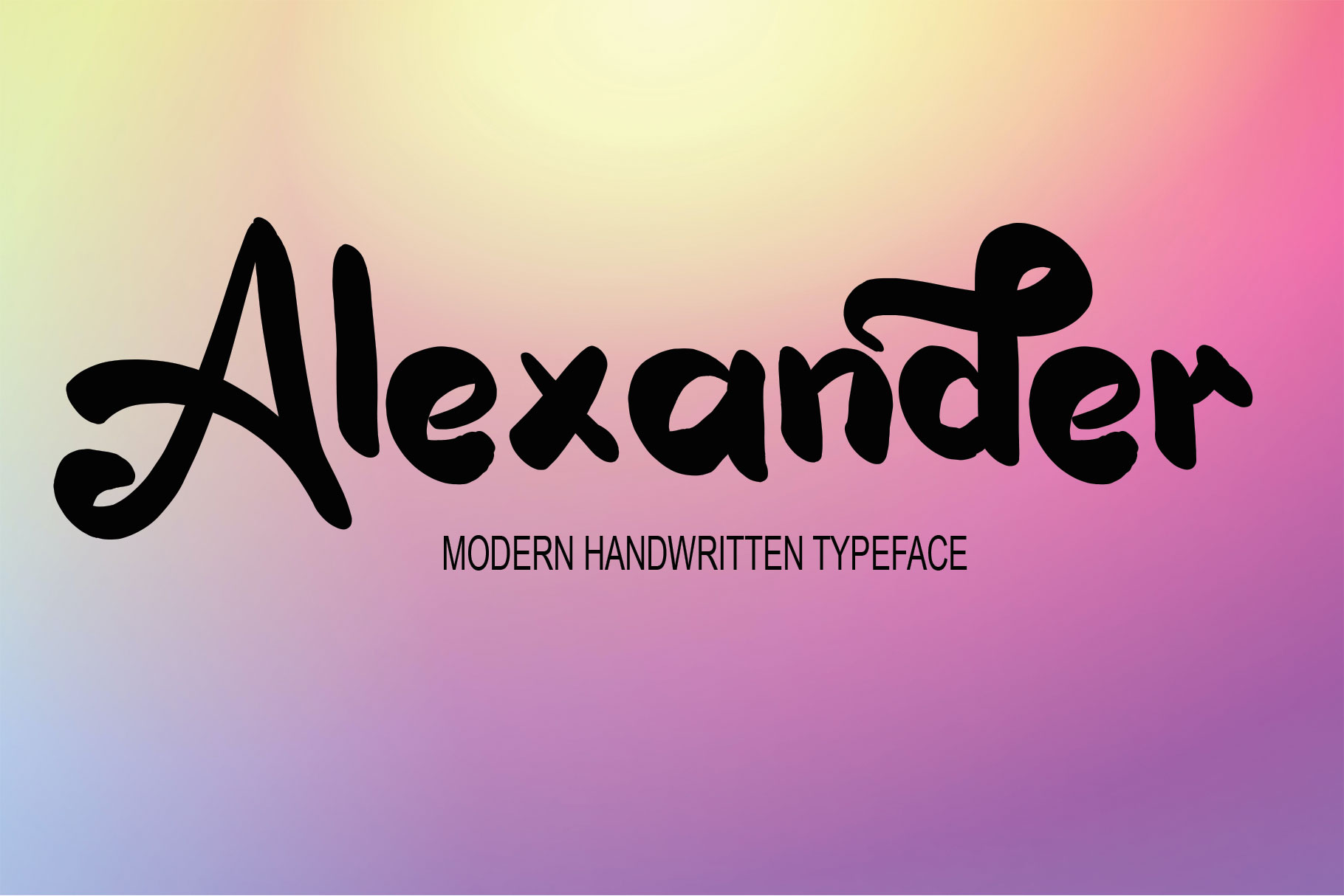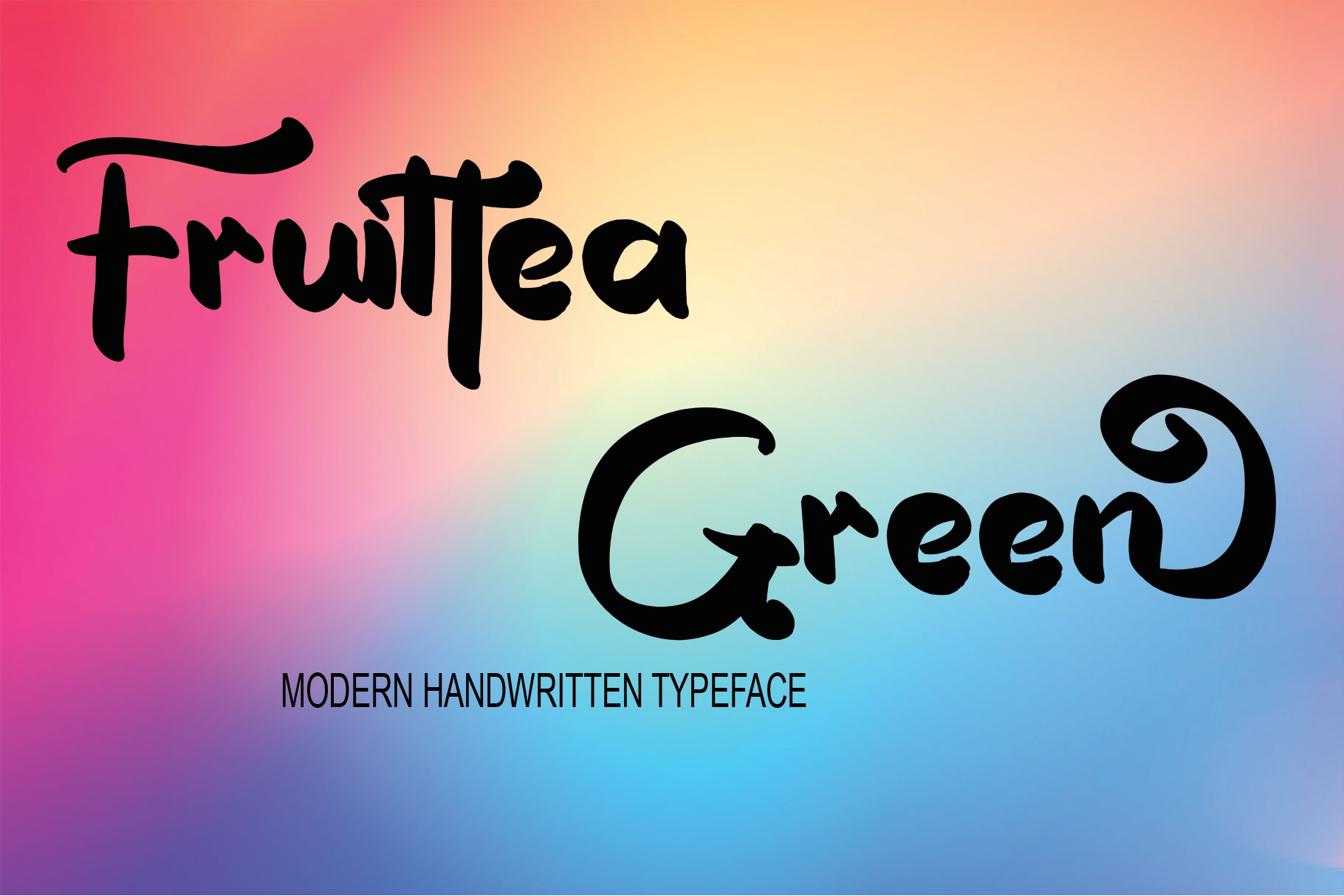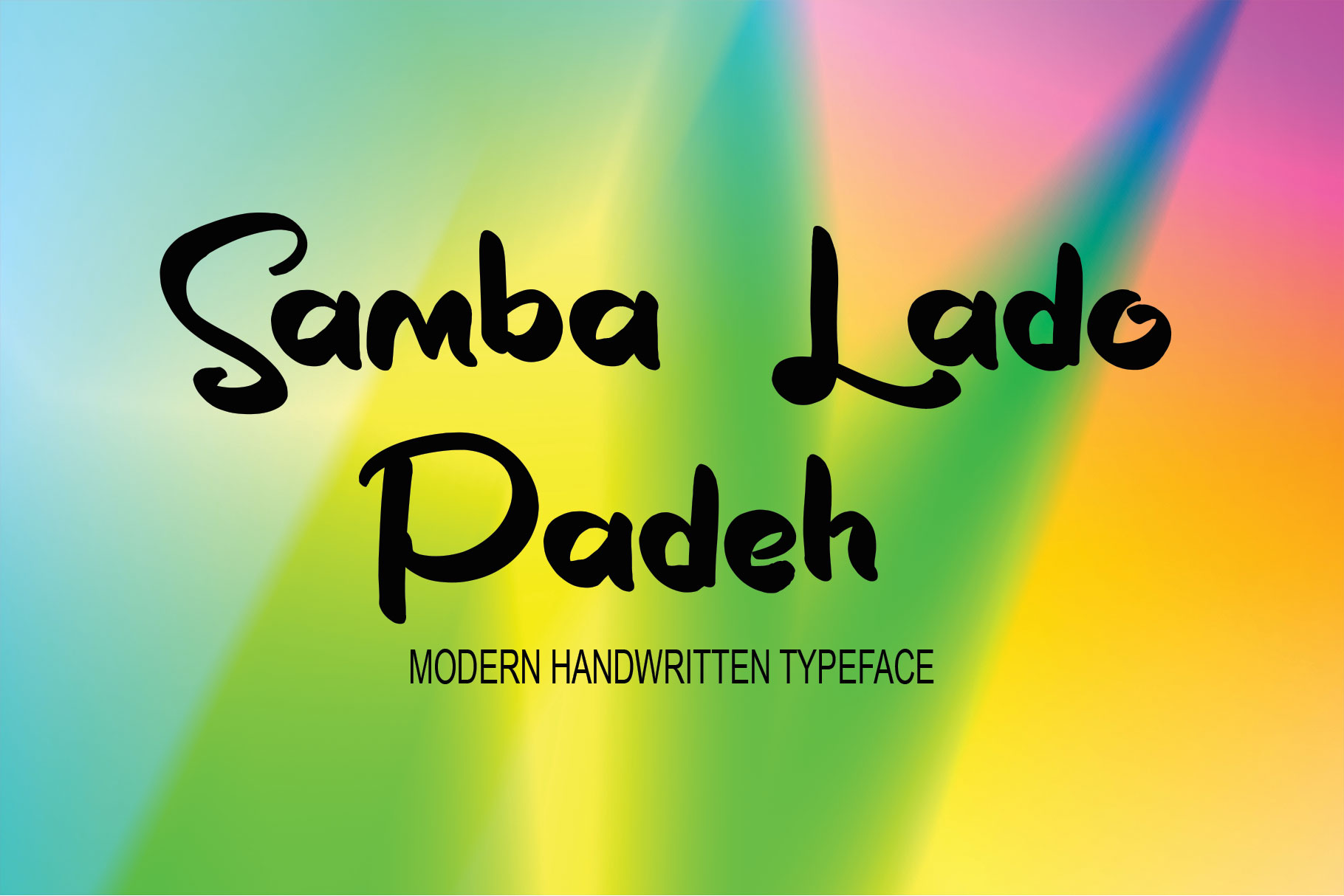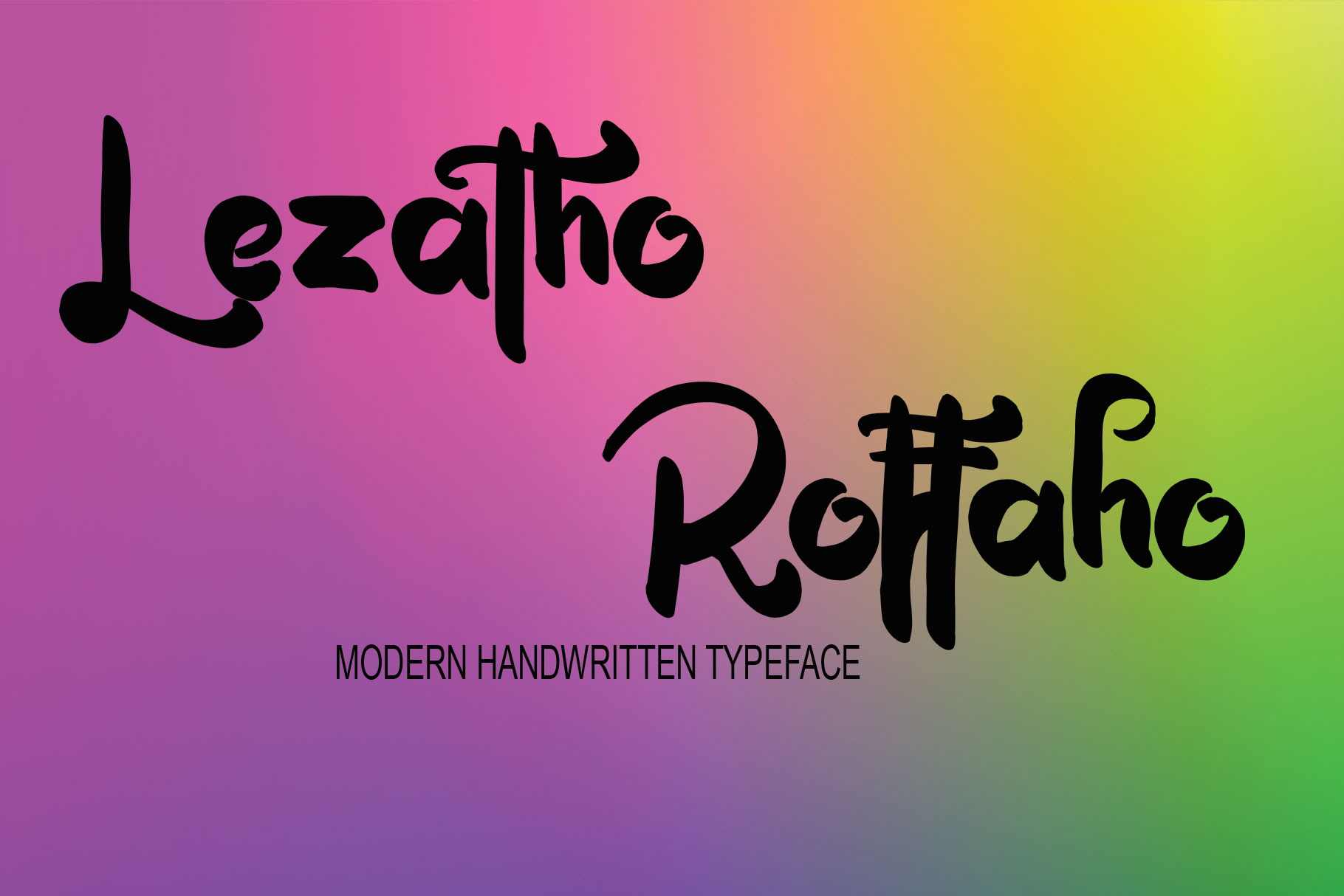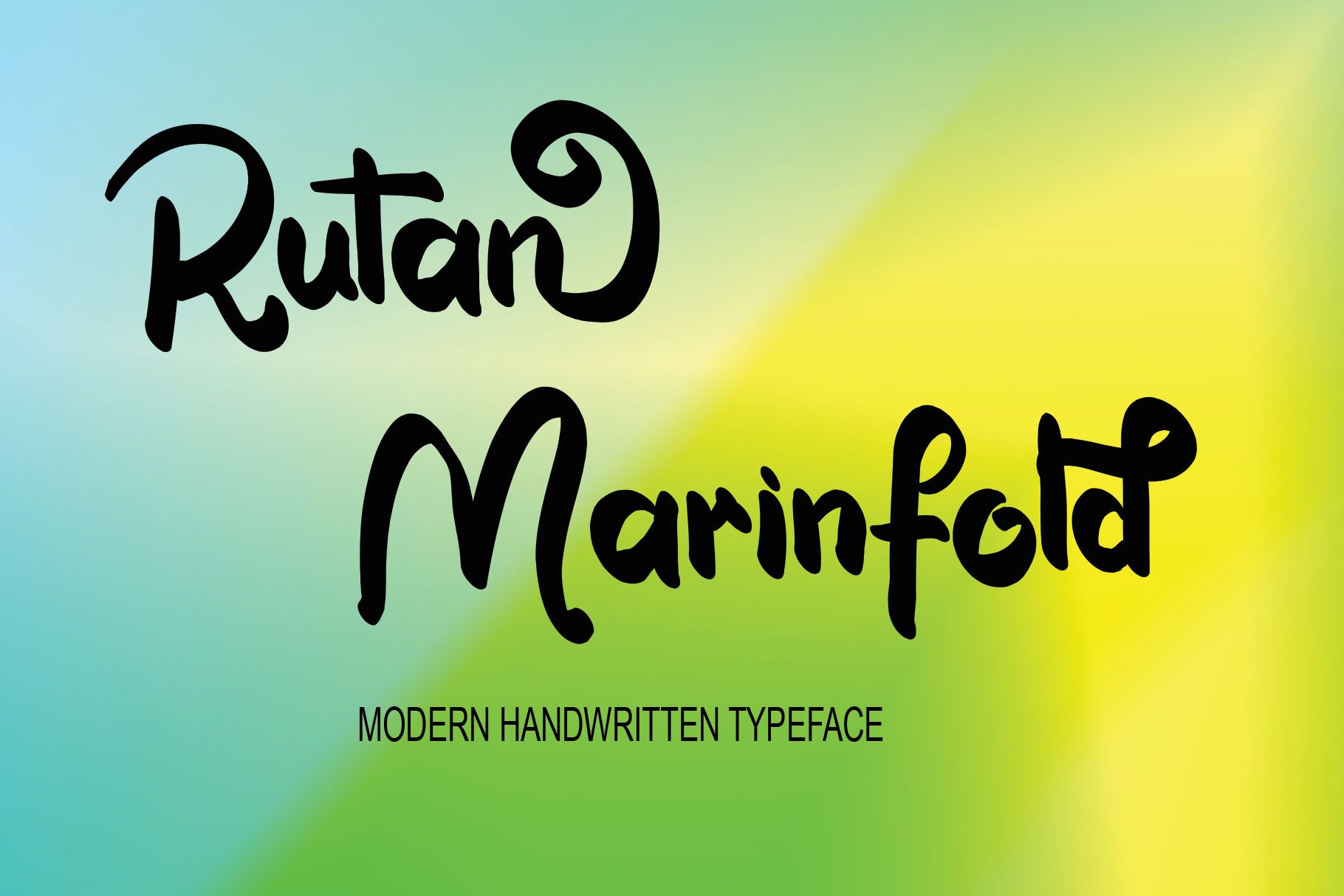
Alexander Free Font
Alexander Free Font is a font written by hand using a tablet. This is a simple typeface but was written very carefully. It can be used for websites, wedding invitations, business cards, signatures, and advertisements, be it product advertisements or other advertisements. Even though it looks simple, this font still looks cool and stylish.